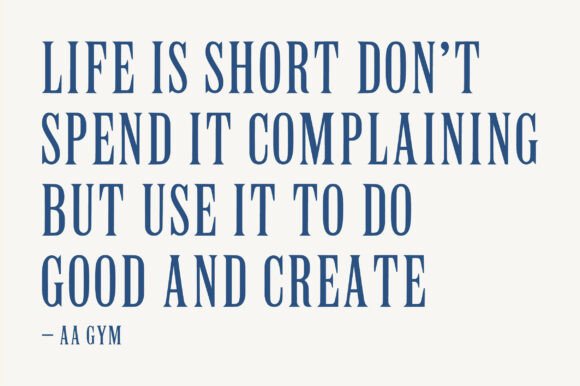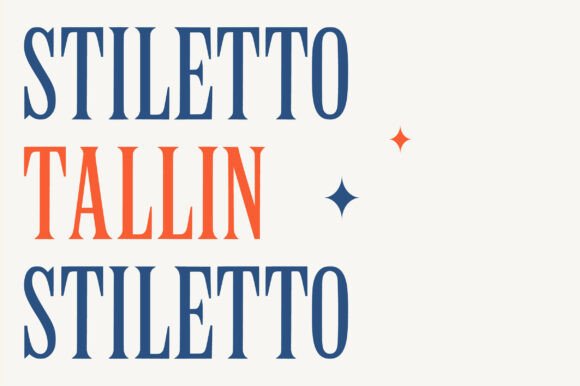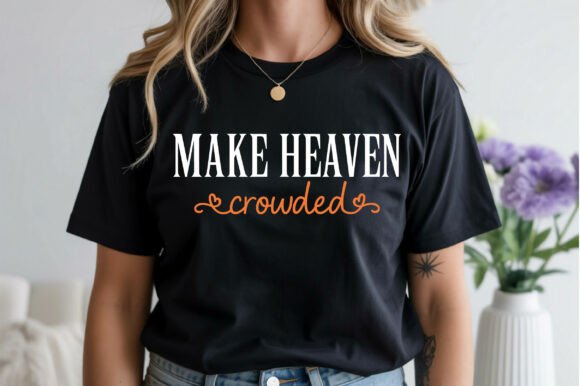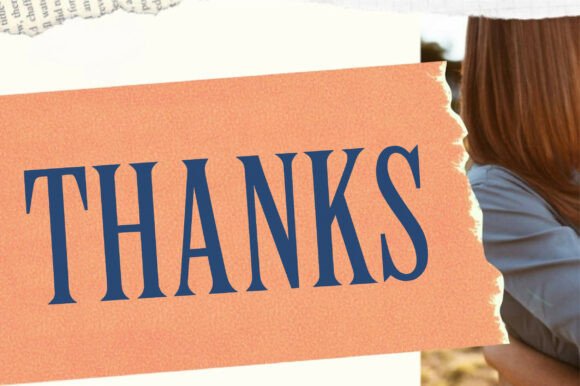
Introduction to Royel Aura Font
Royel Aura is a refined tall serif typeface that blends classic aesthetics with a modern premium look.
Its graceful vertical structure and well-balanced letterforms create a luxurious visual presence, making headlines and titles stand out with style Ideal for branding, apparel, magazine layouts, invitations, packaging designs, posters, and high-end typography projects, Royel Aura delivers clarity, elegance, and a polished design experience.